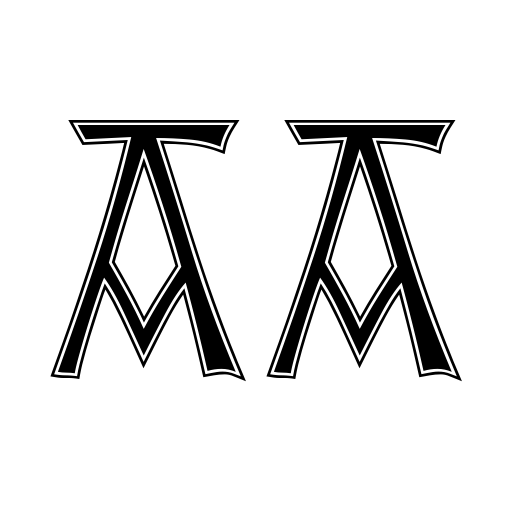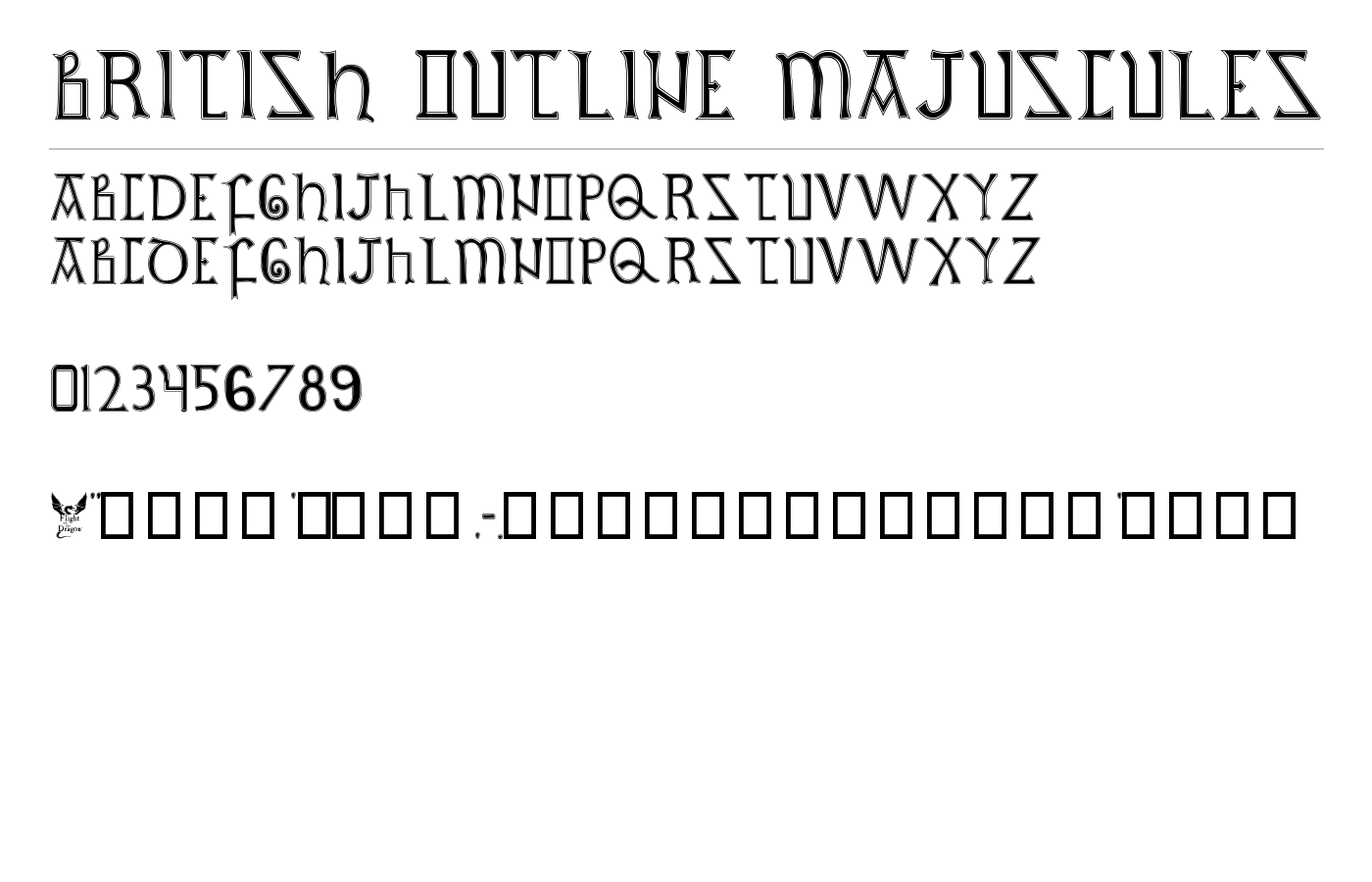
British Outline Majuscules is a decorative serif font characterized by its tall, narrow letterforms and intricate, angular serifs with an outlined style that evokes a vintage, Art Deco feel. This all-caps typeface features a high contrast in stroke weight, creating a distinct and elegant look that works well for eye-catching headlines, logos, or packaging that aim to convey sophistication and historical charm. Its unique, artistic shapes make it ideal for projects seeking a refined, classic personality with a modern twist.
British Outline Majuscules Font